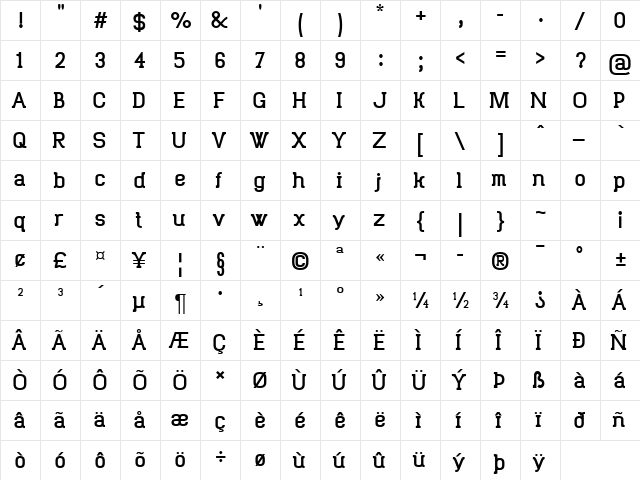
Trunkmill Regular
| Foundry | Johan Aakerlund |
| Designer | Johan Aakerlund |
Design Context for Trunkmill Typeface
Trunkmill offers clean, dependable letterforms without strong stylistic allegiance, making it a practical choice for designers who need flexibility.